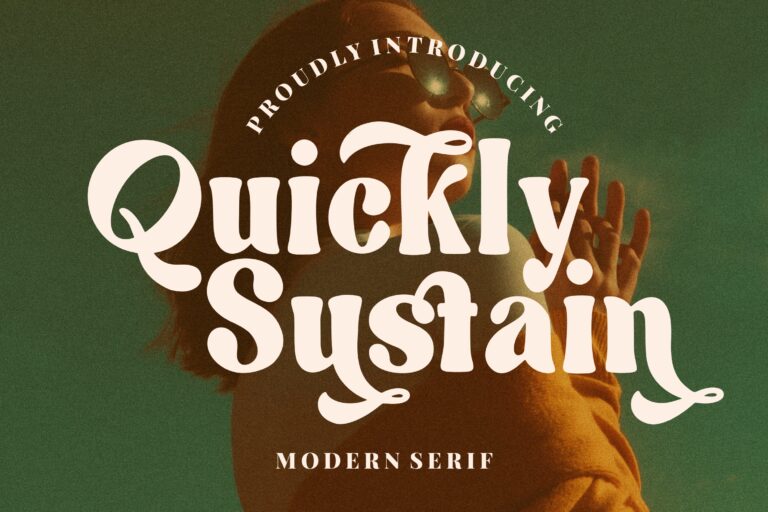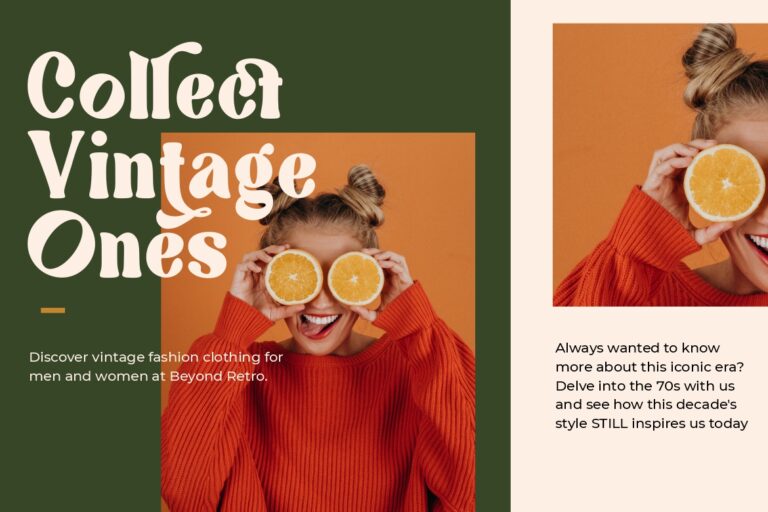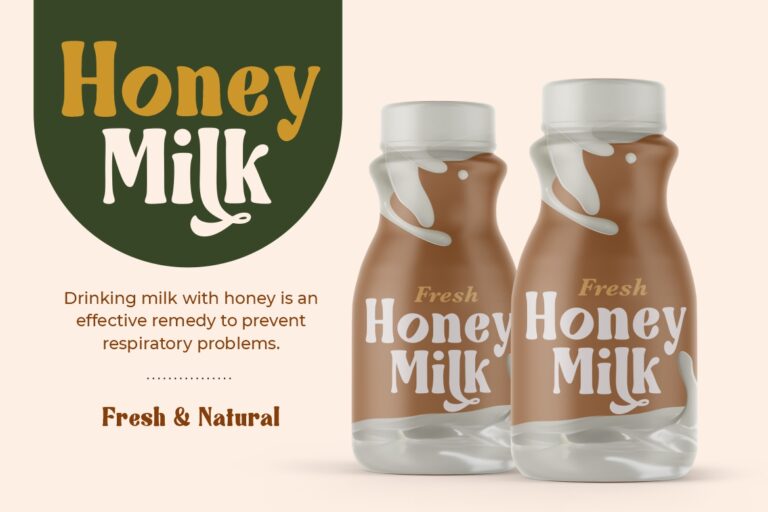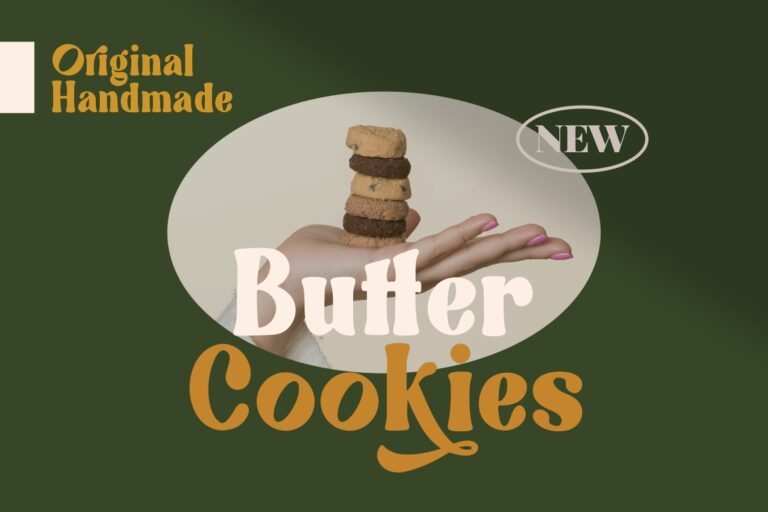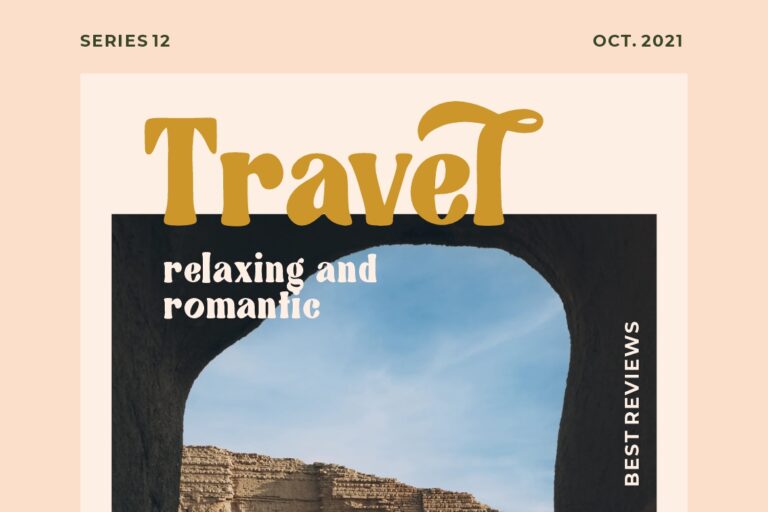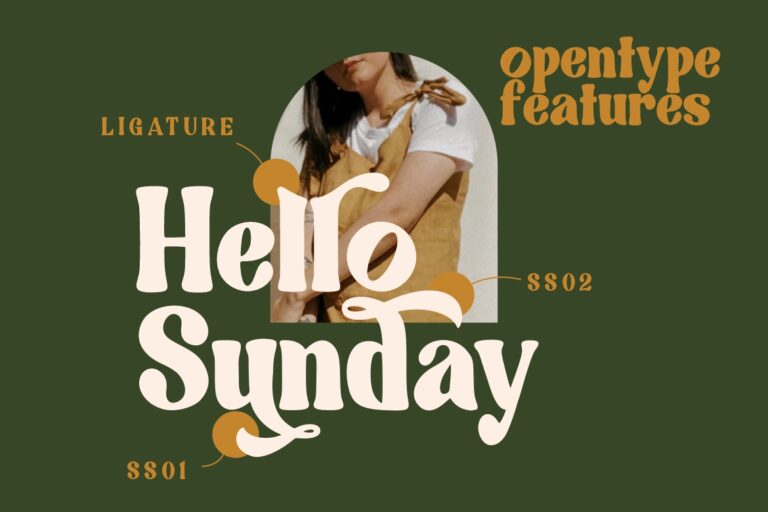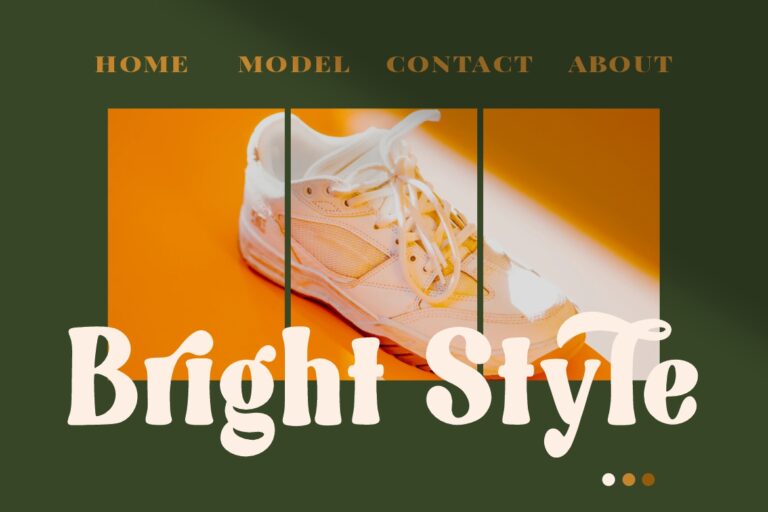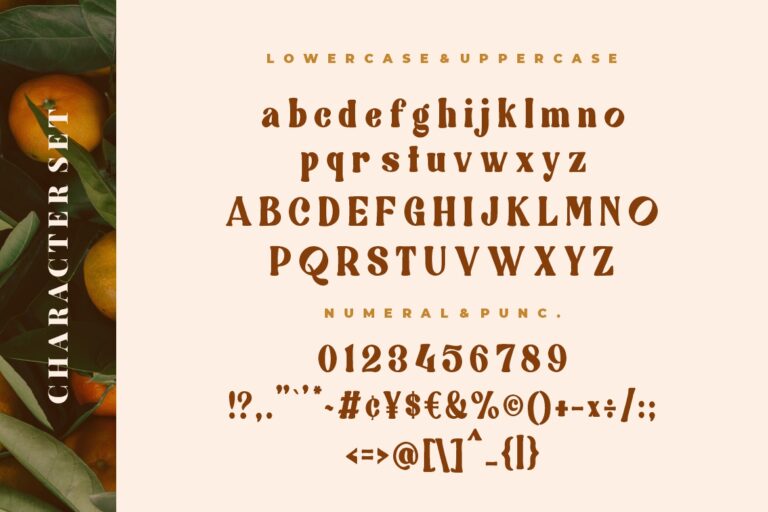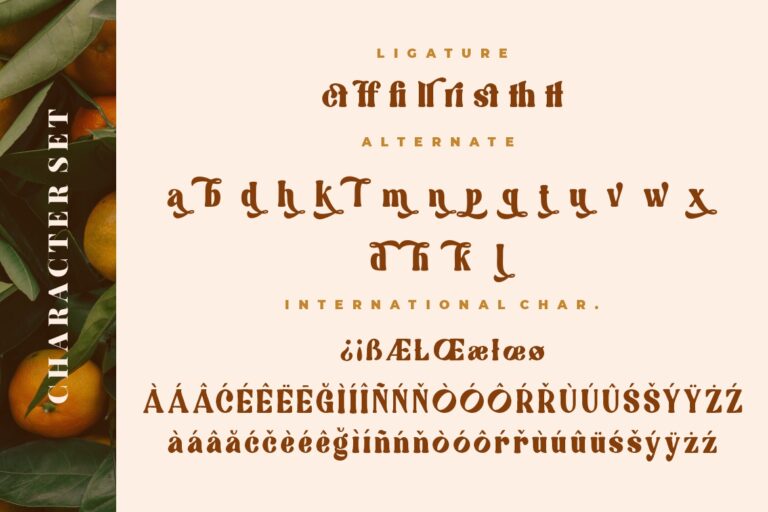
Quickly Sustain Modern Serif
Quickly Sustain is a modern serif font which a chic and feminine style that perfect for your latest project.
Quickly Sustain is perfect for branding projects, logo, wedding designs, social media posts, advertisements, product packaging, product designs, label, photography, watermark, invitation, stationery and any projects that need handwriting taste.